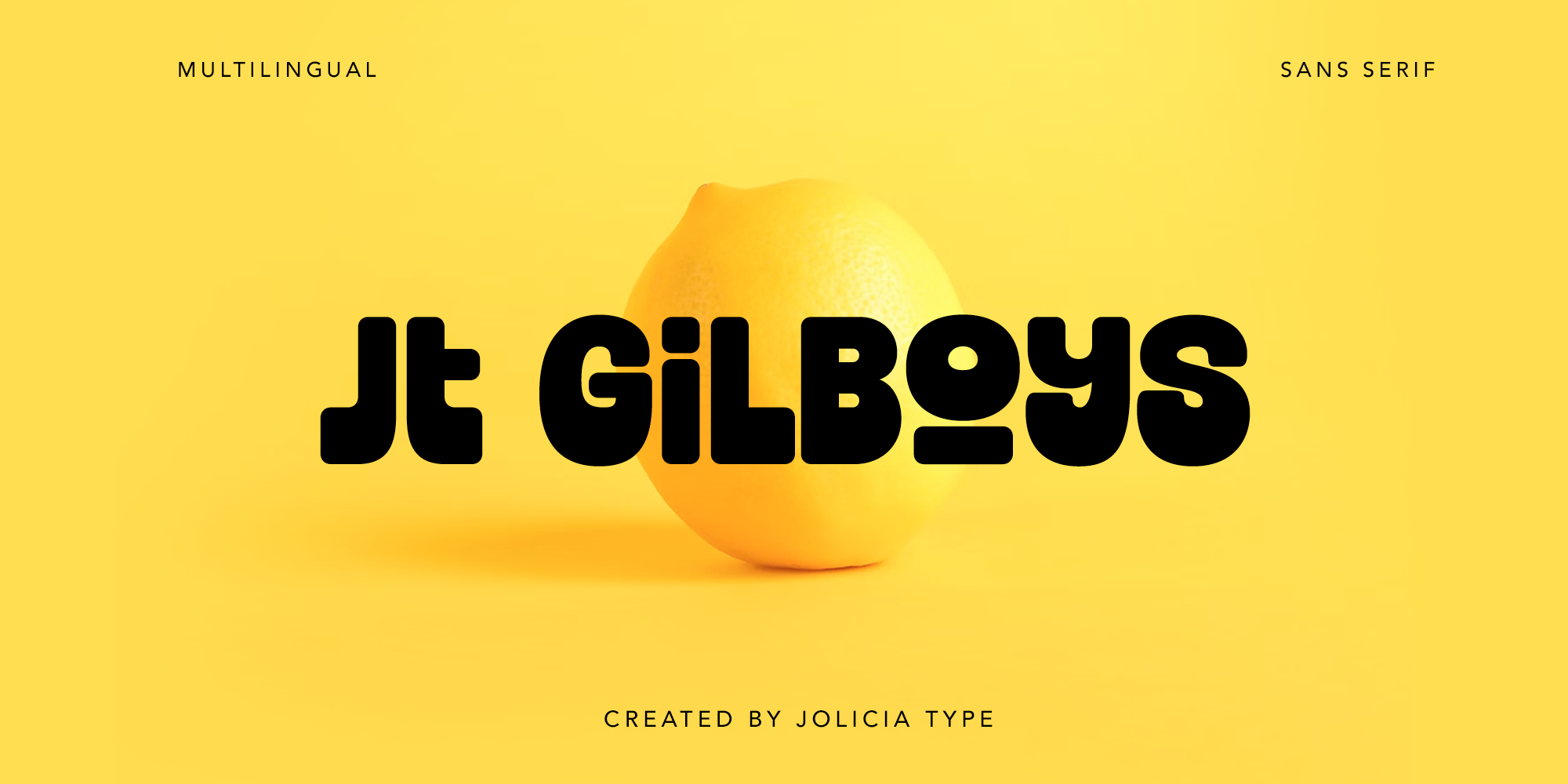
Jt Gilboys Font is ideal for vintage band logos, retro album covers, classic motorcycle branding, nostalgic poster designs, americana merchandise, old-school barbershop signage, heritage brand identities, and vintage-inspired apparel graphics. This distinctive typeface brings authentic character and timeless appeal to any design project celebrating classic American culture and traditional craftsmanship.
What makes Jt Gilboys Font exciting is its perfect capture of mid-century American typography with a modern twist that appeals to contemporary audiences while honoring classic design traditions. The carefully crafted letterforms feature bold, confident strokes with subtle vintage details that create instant recognition and nostalgic appeal. Each character tells a story of American heritage, evoking memories of classic diners, vintage signage, and the golden age of American design.
The Jt Gilboys Font family typically includes regular and bold weights with complete uppercase and lowercase letters, numbers, punctuation marks, and special characters. Many versions feature additional vintage-inspired alternates and decorative elements that enhance the retro aesthetic and provide creative flexibility for period-appropriate designs.
Whether you're creating heritage brand identities or designing nostalgic marketing campaigns, Jt Gilboys Font Free Download delivers unmatched authenticity and vintage charm. This classic typography choice transforms modern designs into timeless pieces that resonate with audiences who appreciate traditional American craftsmanship and vintage aesthetics. The font's robust construction ensures excellent readability across various applications while maintaining its distinctive retro character that makes every project feel like a celebration of classic Americana.